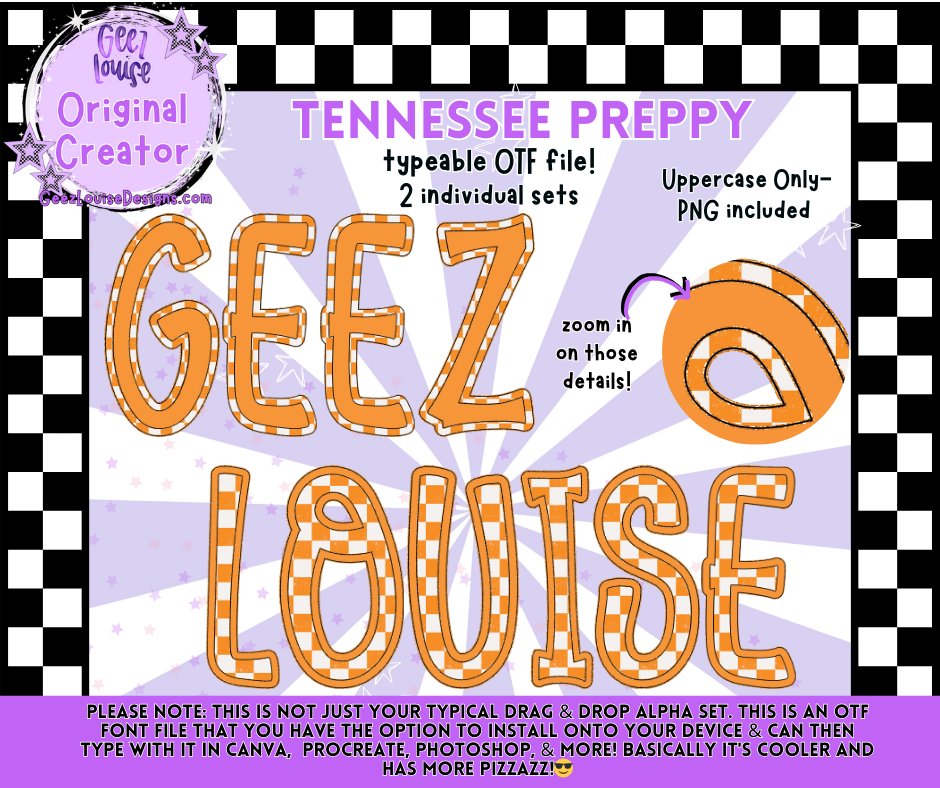
Tennessee Preppy Alpha Font | Orange Check OTF & PNG Letters
🍊 Show your Tennessee pride with the Tennessee Preppy Alpha Font! 🍊
This bold preppy-style set features orange and white checks with a trendy, collegiate vibe—perfect for sports fans, school spirit, and anyone who loves that signature Tennessee look.
• 2 Individual Sets – giving you multiple style options for more variety.
💡 Why you’ll love it:
• Perfect for Tennessee Volunteers and school spirit designs.
• Preppy check style makes projects look fun, bold, and trendy.